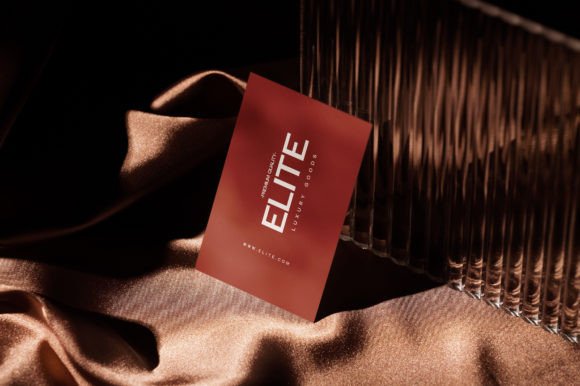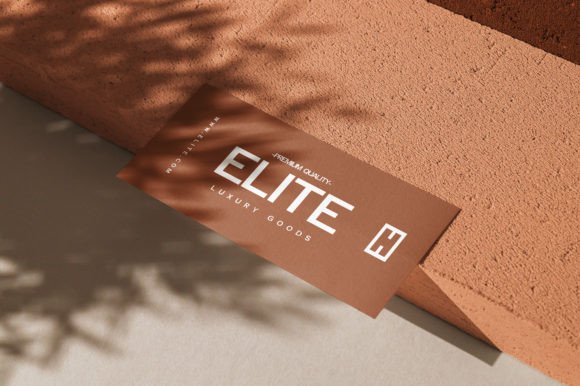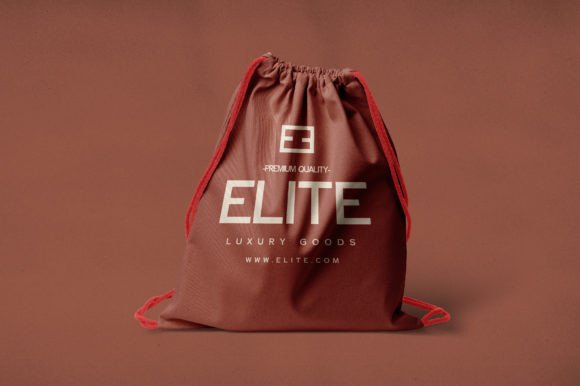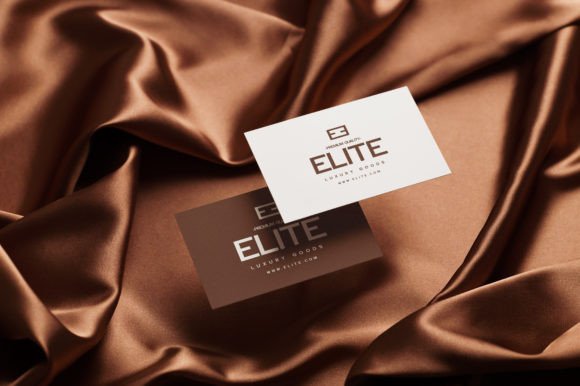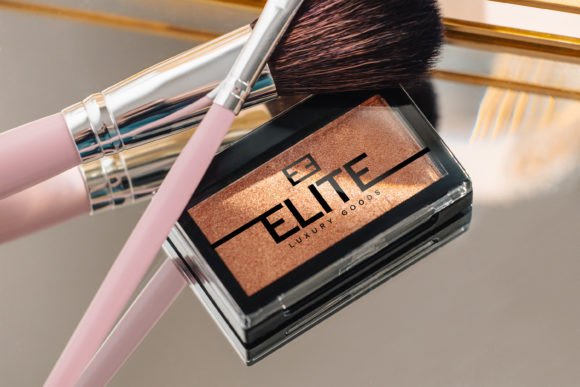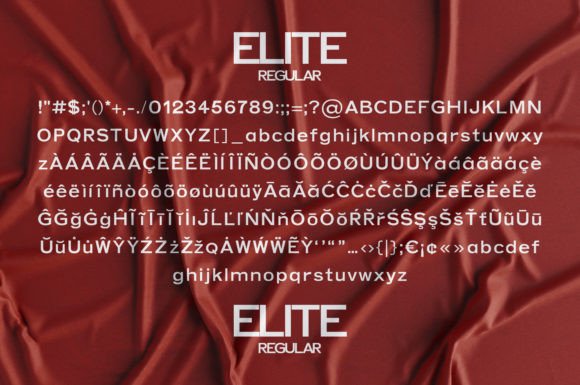
Introducing Elite Font: The Epitome of Elegance and Sophistication
In the realm of typography, few fonts manage to strike a balance between elegance, minimalism, and chic appeal. Elite Font is one such exceptional typeface that has garnered attention for its refined and luxurious aesthetic. As a sans serif font, Elite boasts a unique blend of geometric glyph construction and Swiss type design inspiration, making it an optimal choice for designers seeking a minimalist yet sophisticated look.
The Characteristics of Elite Font
Elite Font is characterized by its clean lines, simple shapes, and a general air of refinement. Its sans serif design ensures that the font remains uncluttered and sleek, making it perfect for a wide range of applications. The geometrical construction of its glyphs provides a sense of order and precision, while the Swiss type design influence adds a touch of classic elegance.
Why Choose Elite Font?
Elite Font’s versatility and aesthetic appeal make it an excellent choice for various design projects. Here are some reasons why designers and crafters might prefer Elite:
- Packaging Design: Elite Font’s minimalist and luxurious feel makes it perfect for high-end product packaging, where standing out on crowded shelves is crucial.
- Posters and Advertising: The font’s elegant and sophisticated look is well-suited for posters, flyers, and advertising materials that require a touch of class.
- Perfume and Cosmetics: Elite Font’s luxurious feel makes it an ideal choice for branding in the perfume and cosmetics industry, where elegance and sophistication are paramount.
- Brand Identity: For businesses looking to establish a premium brand image, Elite Font can be a valuable asset in creating a strong visual identity.
Designing with Elite Font
When incorporating Elite Font into your design projects, you’ll quickly discover why it becomes a favorite. Its readability and versatility allow it to seamlessly integrate into various design contexts. Here are some tips for making the most of Elite Font:
- Pair it with Images: Elite Font pairs well with high-quality images and photographs, enhancing the overall visual impact of your design.
- Experiment with Colors: While Elite Font looks stunning in black and white, feel free to experiment with different colors to match your brand’s palette or design theme.
- Play with Sizes: The font’s scalability is one of its strengths. Use it in headlines, subheadings, and body text to create visual hierarchy and emphasis.
The Benefits of Using Elite Font
Choosing Elite Font for your design projects comes with several benefits:
- Unique Aesthetic: Elite Font offers a distinctive look that sets it apart from more common typefaces.
- High Versatility: Its adaptability makes it suitable for a wide range of design applications.
- Enhanced Readability: Despite its elegant and minimalist design, Elite Font maintains excellent readability, even at smaller sizes.
Elite Font stands out as a premier choice for designers and crafters looking to infuse their projects with a sense of elegance, minimalism, and luxury. Its geometric construction, inspired by Swiss type design, provides a sophisticated look that is both timeless and trendy. Whether you’re working on packaging design, posters, brand identity, or any other project that demands a high level of aesthetic appeal, Elite Font is sure to exceed your expectations. By incorporating Elite Font into your creative endeavors, you’ll not only elevate the visual quality of your work but also ensure that your designs leave a lasting impression on your audience.